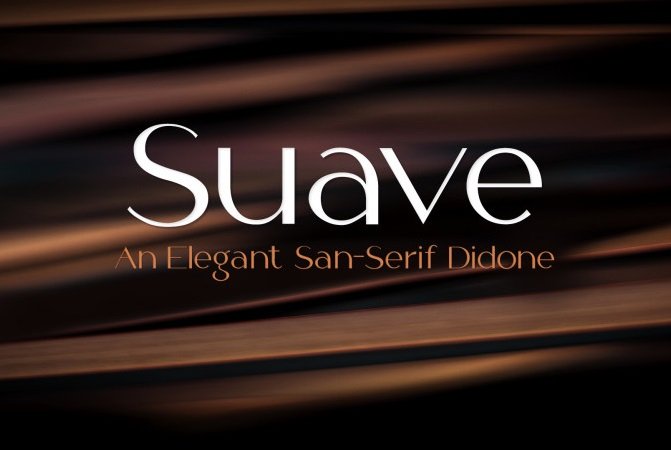
Suave Font
Suave is an sans serif typeface that boasts beautiful lines & minimalis style. It containsfull set of glyphs, including uppercase and lowercase letters, numerals and symbols. Suave combines smooth curvs and sharp contrasting lines to create a beautiful didone that expresses neo retro feelings. Suave works well for headlines, text blocks as well as typographic layouts.